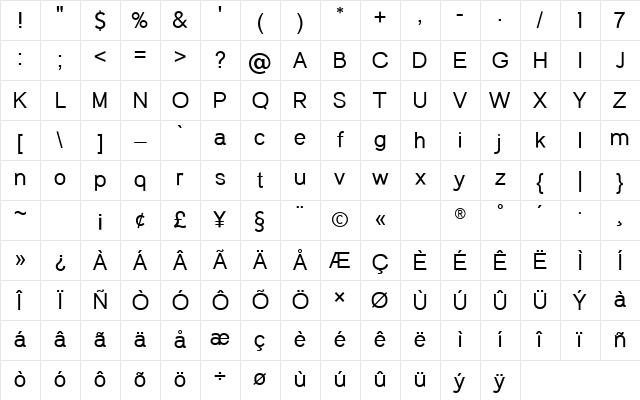
Complete Galvanizer Regular glyph index. Displaying only characters natively supported by Galvanizer Regular font.
Galvanizer is a composed and adaptable typeface that performs quietly and consistently across a wide range of design contexts.